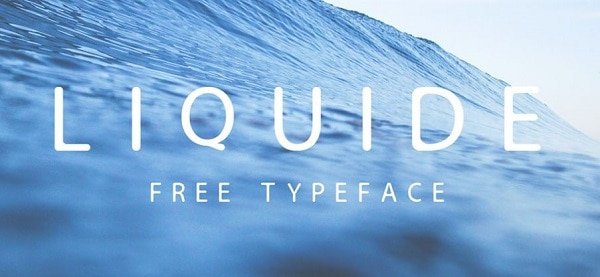
Liquide: Free Typeface
Liquide is free font. It has simple forms yet it is very modern and professional. Liquide will be perfect both on web or in print.